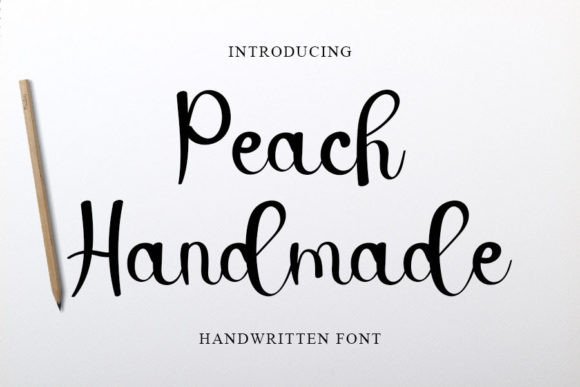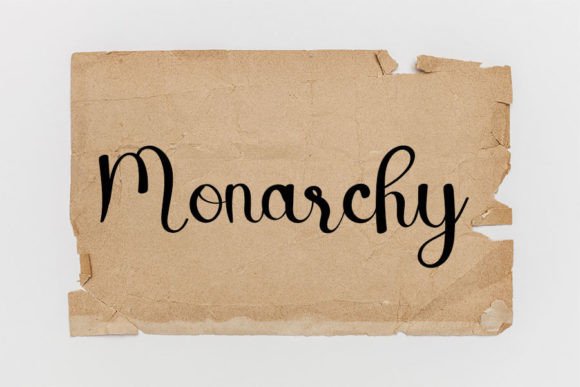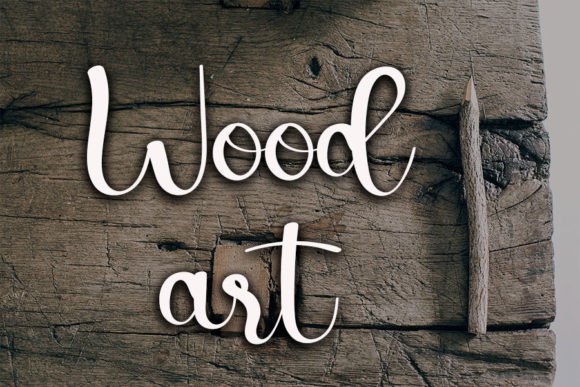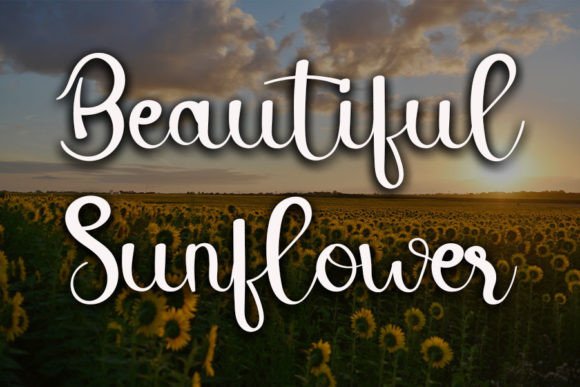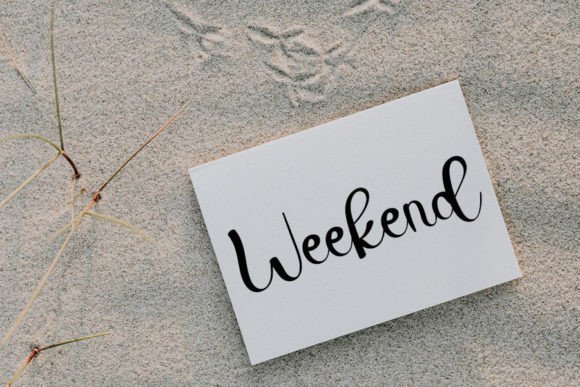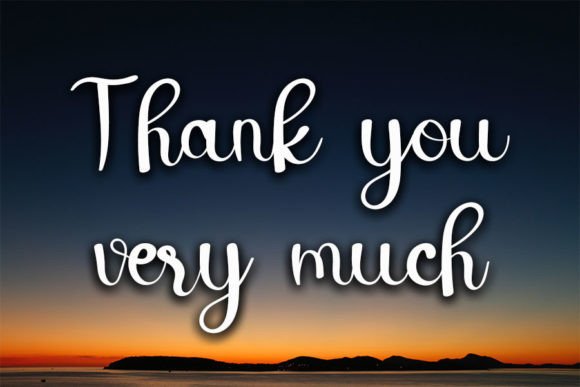
Peach Handmade Font
Peach Handmade Font: Colorful Handwriting for Playful Designs
“Peach Handmade” is a vibrant handwritten font that combines elegance with playfulness. Its versatility makes it perfect for various design applications, from logos to DIY projects.
Key Features of Peach Handmade Font
• Colorful Style: Peach Handmade brings a cheerful and vibrant feel to designs.
• Versatile Use: Suitable for many projects, including branding and social media.
• Playful Character: Adds a touch of fun and creativity to typography.
Peach Handmade’s colorful style is ideal for creating eye-catching logo designs and branding materials that convey a fun, creative image.
Social Media Graphics
Use Peach Handmade to design engaging social media graphics that stand out with their vibrant appeal.
DIY and Craft Projects
The font’s playful nature makes it perfect for adding a personal touch to DIY and craft projects.
Why Choose Peach Handmade Font?
Peach Handmade offers more than just colorful letters. Here’s why it stands out:
• Enhances designs with its vibrant and cheerful presence
• Creates a sense of joy and creativity in typography
• Adapts well to various design themes and projects
By using Peach Handmade, you open up new design possibilities. Its playful style works well in many contexts, from greeting cards to poster designs. The font’s ability to convey fun can inspire creative ideas and help you approach projects from a fresh, vibrant perspective.
If you’re looking for a font that’s both colorful and versatile, Peach Handmade is an excellent choice. It’s perfect for adding a touch of playfulness to your work, especially for projects that need a fun, vibrant feel.
Explore how Peach Handmade can transform your designs. From website headers to personal creations, this font brings a cheerful and engaging quality to your work.